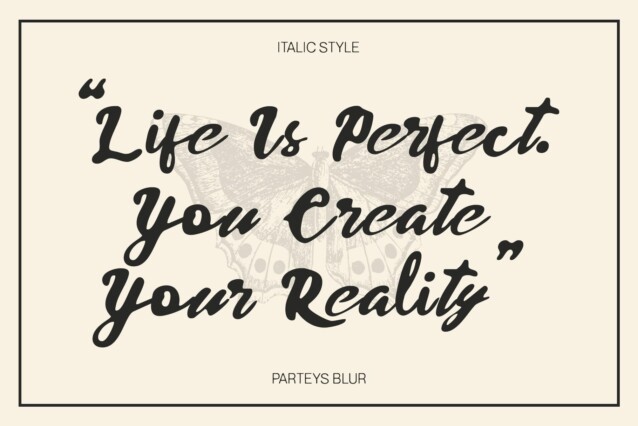
Parteys Blur Font
Parteys Blur Font is a delightful script font characterized by soft and dynamic brush strokes that create a cute and playful impression. Each flowing letterform is designed to evoke warmth and friendliness, making it perfect for designs that aim to showcase a cheerful personality.